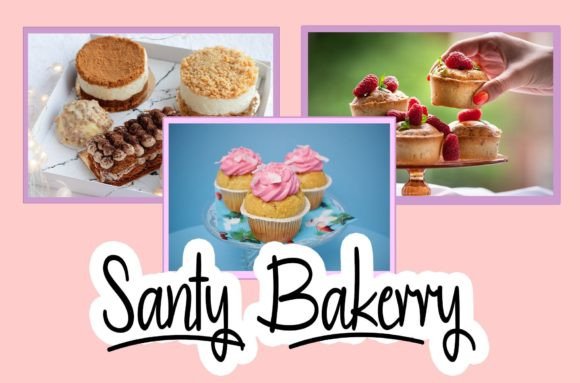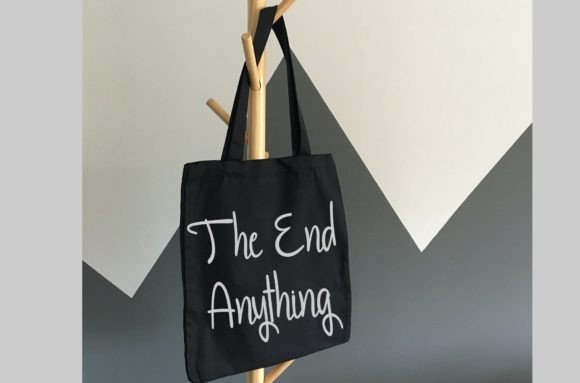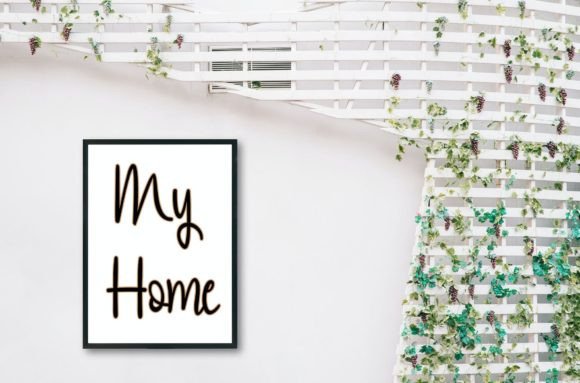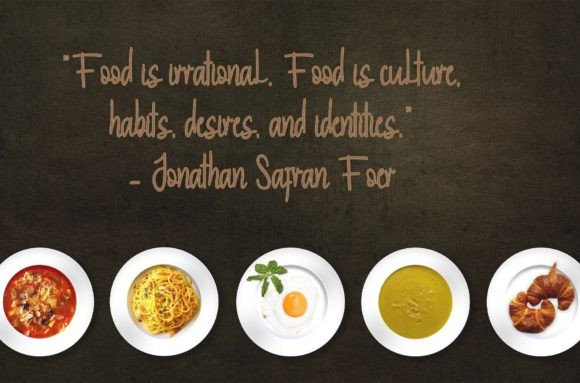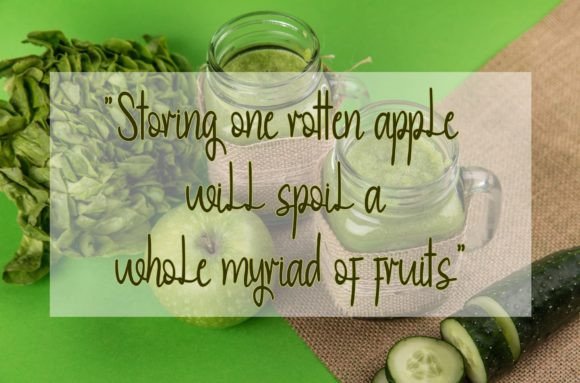
Introducing Bodyguard Font: The Fun and Friendly Handwritten Font to Elevate Your Designs
Are you tired of using the same old fonts in your designs? Look no further than Bodyguard Font, a fun and friendly handwritten font that’s sure to make your designs stand out. With its unique charms and versatility, Bodyguard Font is the perfect choice for designers and crafters looking to add a personal touch to their work.
What Makes Bodyguard Font So Special?
Bodyguard Font is a one-of-a-kind handwritten font that’s been carefully crafted to bring a sense of fun and friendliness to your designs. Its unique and quirky style is sure to capture the attention of your audience and leave a lasting impression. Whether you’re working on a branding project, a social media post, or a craft project, Bodyguard Font is the perfect choice.
One of the standout features of Bodyguard Font is its versatility. It can be used in a variety of contexts, from formal to informal, and can be paired with a range of other fonts to create a unique and eye-catching combination. Whether you’re looking to create a bold and statement-making design or a more subtle and understated one, Bodyguard Font is the perfect choice.
How to Use Bodyguard Font in Your Designs
Here are a few tips for using Bodyguard Font in your designs:
- Use it to add a personal touch: Bodyguard Font is a handwritten font, which makes it perfect for adding a personal touch to your designs. Use it to create a sense of warmth and approachability.
- Pair it with other fonts: Bodyguard Font can be paired with a range of other fonts to create a unique and eye-catching combination. Try pairing it with a bold sans-serif font for a striking contrast.
- Experiment with different colors: Bodyguard Font looks great in a range of colors, from bright and bold to soft and pastel. Experiment with different colors to find the one that works best for your design.
Inspiration for Your Designs
Bodyguard Font is a font that’s full of inspiration. Its unique and quirky style is sure to spark your creativity and help you come up with new and exciting design ideas. Here are a few ideas to get you started:
- Create a bold and statement-making poster: Use Bodyguard Font to create a bold and statement-making poster that grabs attention.
- Design a social media post: Use Bodyguard Font to create a social media post that’s fun and engaging.
- Make a craft project: Use Bodyguard Font to add a personal touch to your craft projects, such as scrapbooking or card making.
Why Designers and Crafters Love Bodyguard Font
Bodyguard Font has quickly become a favorite among designers and crafters. Here are a few reasons why:
- It’s fun and friendly: Bodyguard Font is a font that’s full of personality. It’s fun and friendly, and is sure to bring a smile to your face.
- It’s versatile: Bodyguard Font can be used in a wide range of contexts, from formal to informal.
Bodyguard Font is a fun and friendly handwritten font that’s sure to elevate your designs. With its unique charms and versatility, it’s the perfect choice for designers and crafters looking to add a personal touch to their work. Whether you’re working on a branding project, a social media post, or a craft project, Bodyguard Font is the perfect choice. So why wait? Download Bodyguard Font today and start creating beautiful designs that stand out!